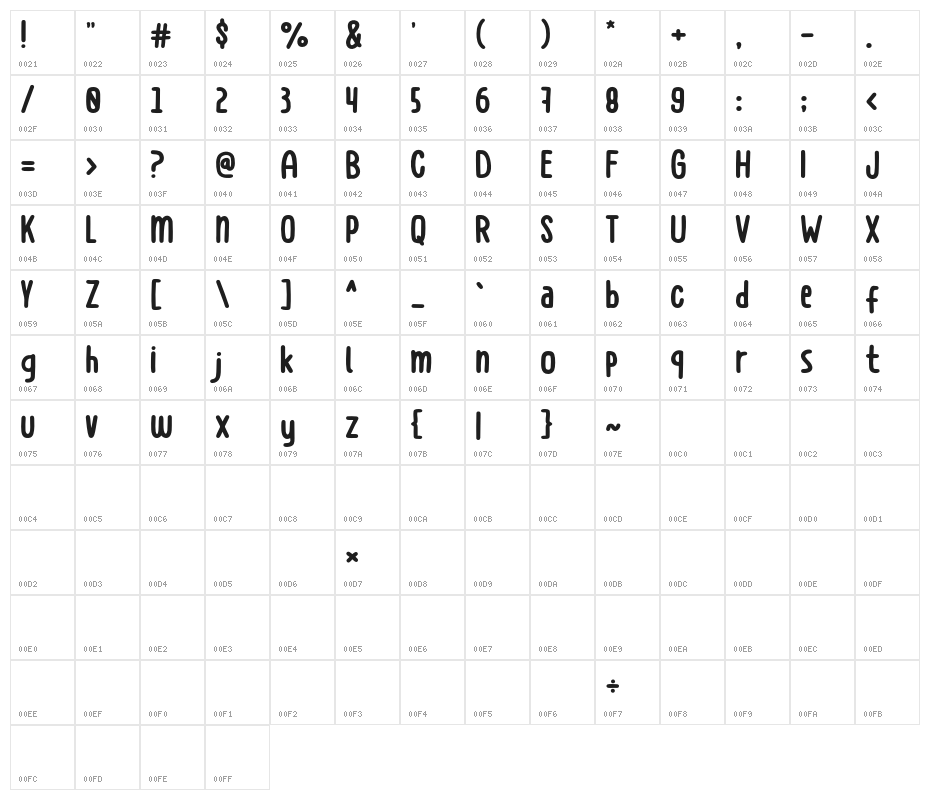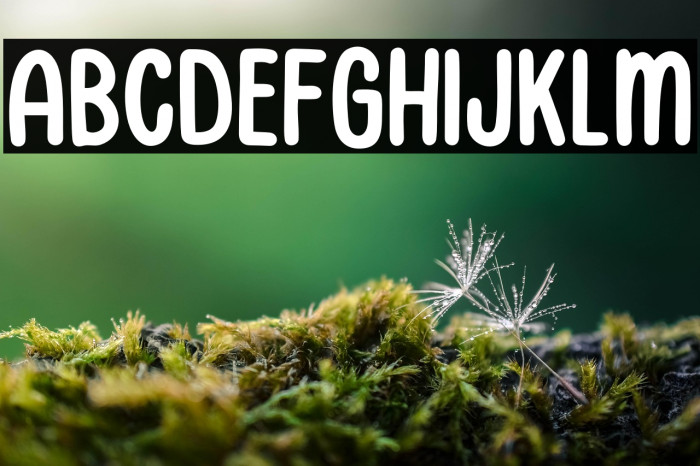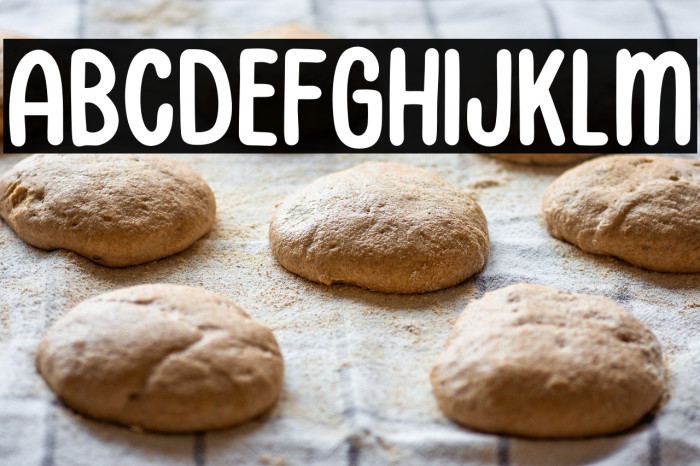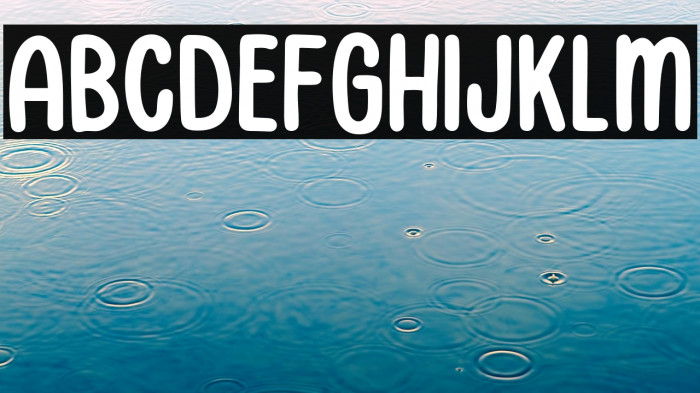
Milky Again Font
Milky Again Description
This playful and rounded font features a bold and friendly appearance, characterized by its thick strokes and smooth curves. The letters are slightly condensed, giving it a compact look while maintaining readability. The uppercase and lowercase letters share a consistent style, with a whimsical touch that adds personality. The numerals and special characters are designed to match the overall aesthetic, making it suitable for various creative applications. Its informal and approachable style makes it ideal for projects that require a fun and engaging tone.
| Proposed Projects | Ideal for children's books, playful branding, greeting cards, and casual event posters. |